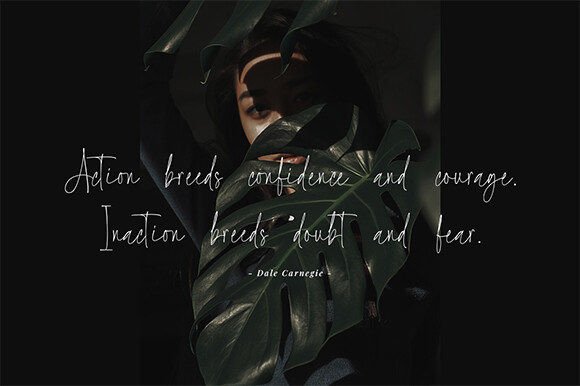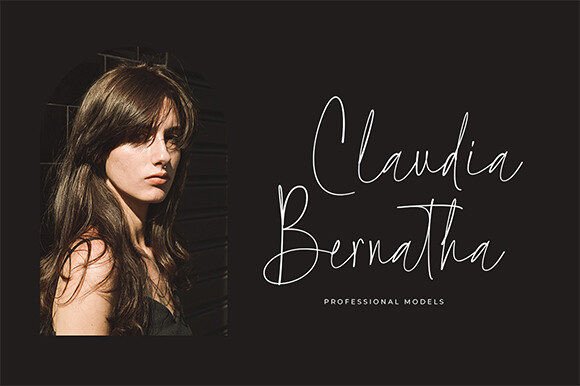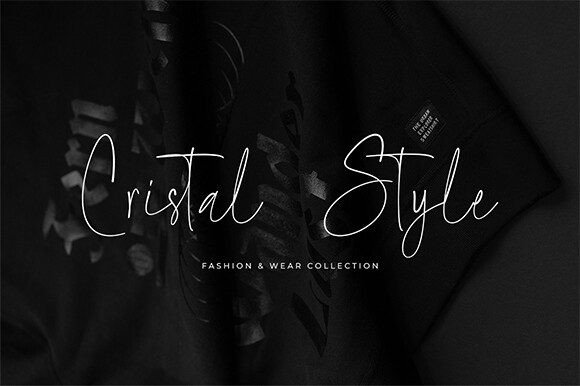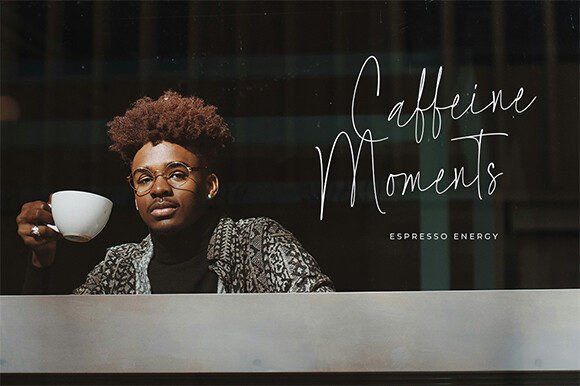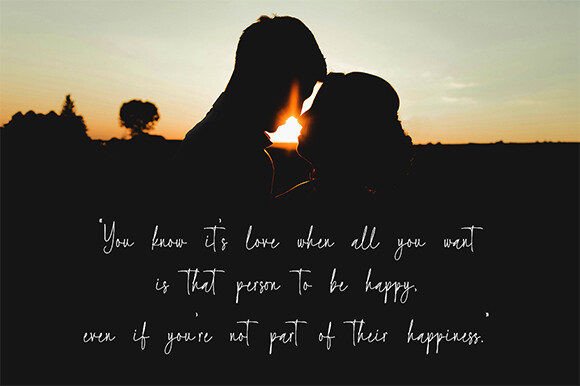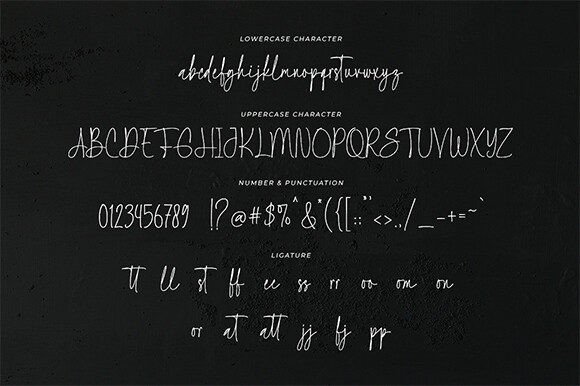
Introduction to Grateful Signature Font Font
Fonts play a crucial role in design, and the Grateful Signature Font font is a typeface that brings both character and versatility to any project. Whether you’re working on a branding project, a website, or a print design, the Grateful Signature Font font offers a unique style that can elevate your work.
Grateful Signature is a stunning and elegant script font that embodies the beauty and grace of handwritten signatures.
Its flowing, delicate strokes create a sophisticated and personal touch, making it perfect for branding, invitations, logos, and any design that seeks to evoke a sense of charm and refinement .
Key Features of Grateful Signature Font Font
Why Choose Grateful Signature Font Font?
The Grateful Signature Font font is more than just a typeface – it’s a design tool that helps you communicate your message with style and clarity. Its unique character set and versatile design make it suitable for a wide range of applications, from elegant invitations to bold headlines.
With its carefully crafted letterforms and balanced proportions, the Grateful Signature Font font ensures readability and visual appeal across all mediums.
What makes Grateful Signature Font font special?
The Grateful Signature Font font stands out with its unique design, exceptional readability, and versatility across various design applications.